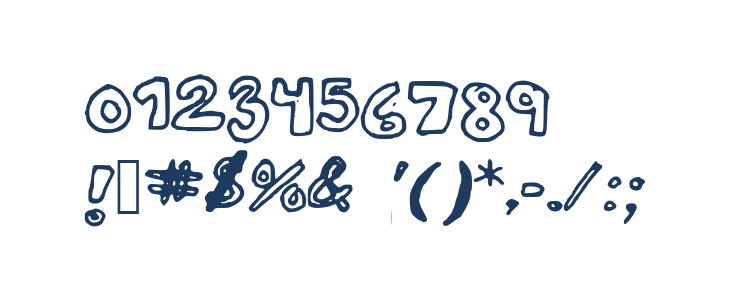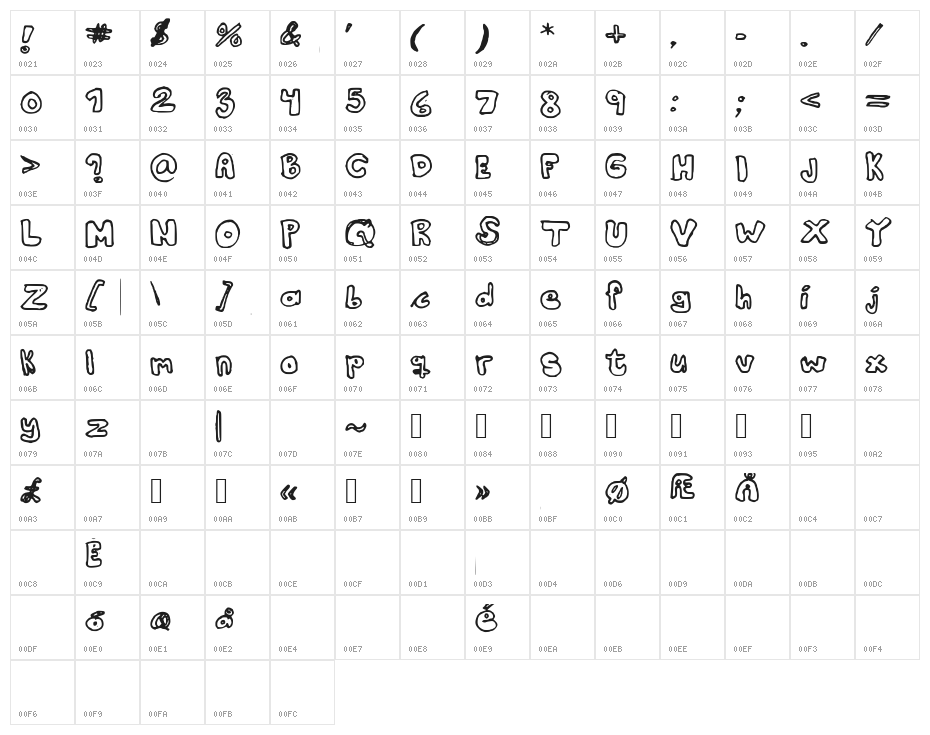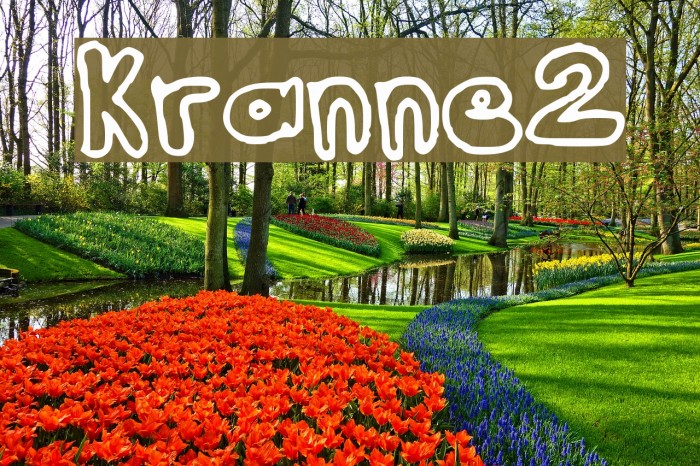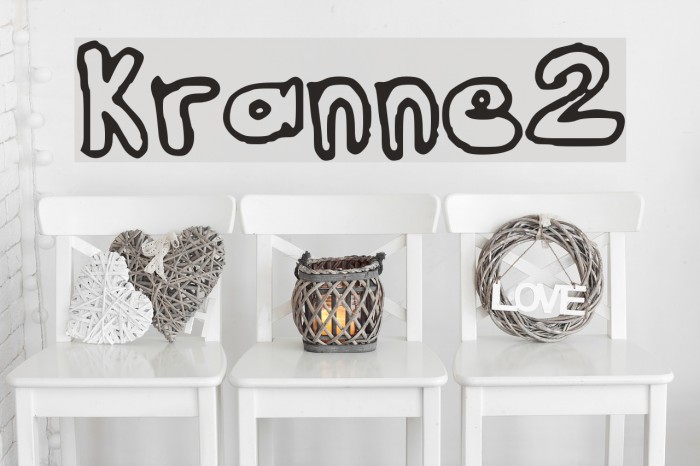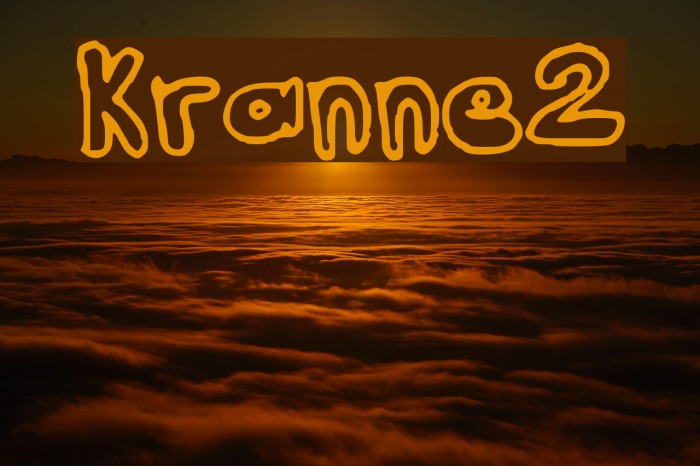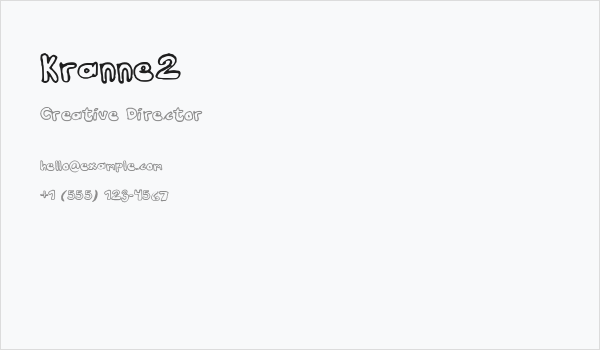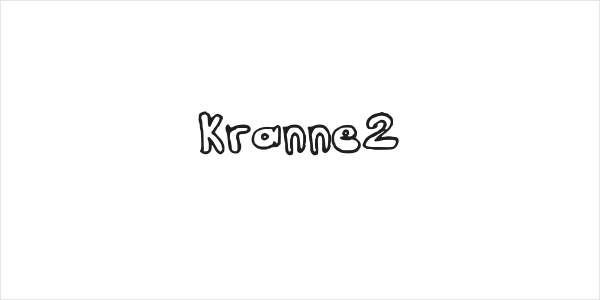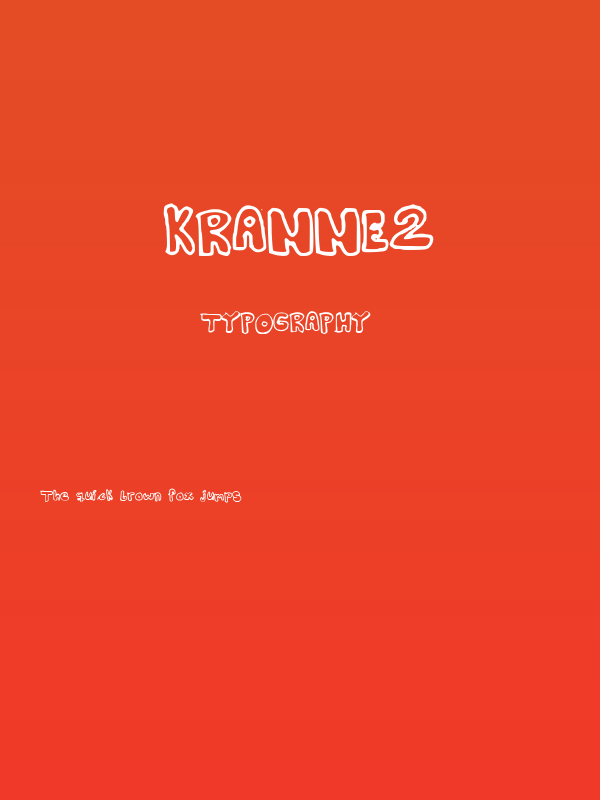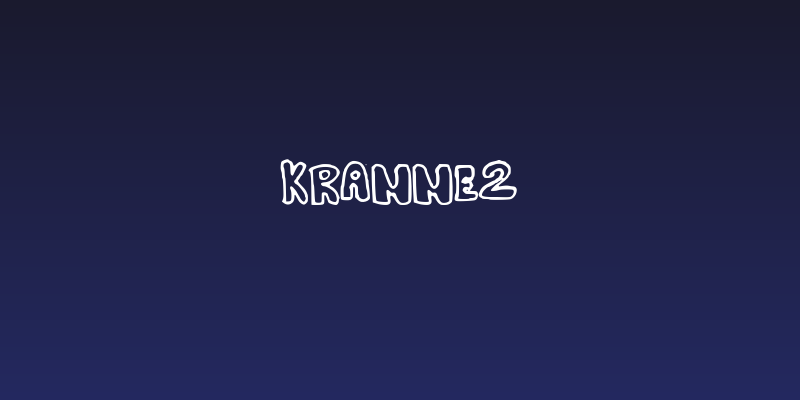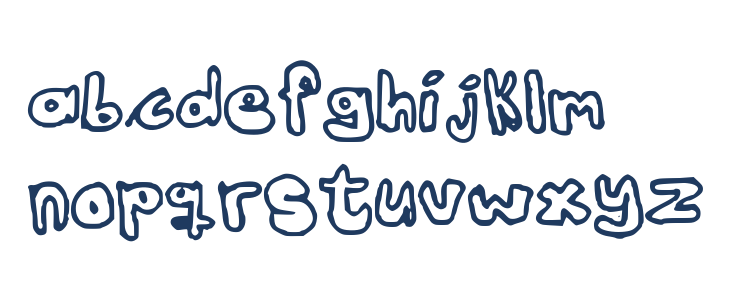
Kranne2 Font
Kranne2 Description
This playful and bold font features a hand-drawn, cartoonish style with thick, uneven strokes that give it a lively and informal appearance. The characters are outlined, creating a hollow effect that adds to its whimsical charm. Each letter has a unique, slightly irregular shape, enhancing the font's casual and friendly vibe. The numbers and special characters maintain this quirky aesthetic, making it suitable for creative and fun projects.
| Proposed Projects | Ideal for children's books, comic strips, playful branding, party invitations, and educational materials. |